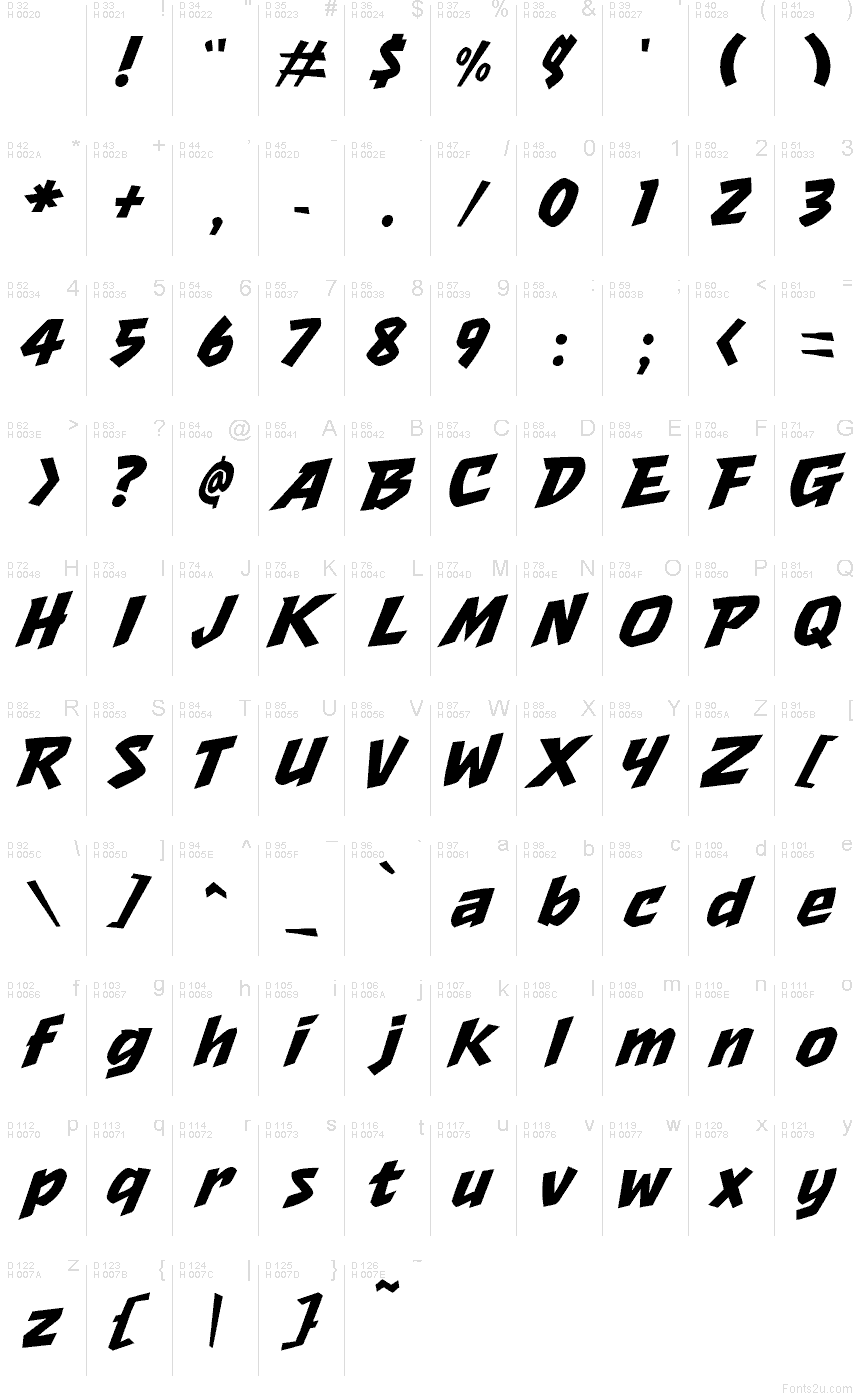
Asteroid Blaster
Asteroid Blaster font by BlackFridayFont FMF is a free comic display typeface that feels like it was ripped straight from an arcade cabinet or action-packed splash page. The letters are sharply slanted and tightly drawn, with bold, inky strokes that shoot across the line like motion blur. It has a punchy, hand-done energy that makes every word feel like it’s mid-explosion, without slipping into messy or hard-to-read territory.
Using Asteroid Blaster, titles instantly gain a sense of speed and impact, which shines on comic covers, game logos, sci-fi posters, YouTube thumbnails, esports branding, and event flyers. This free font works beautifully when you keep it large and bold, then pair it with a clean geometric sans serif for supporting text.